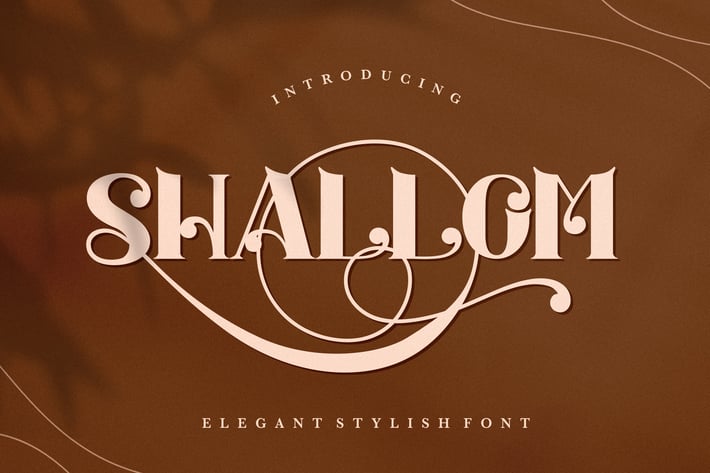
Shallom - Elegant Stylish Serif Font
Introducing Shallom Elegant stylish Serif font. Are you looking for a bold vintage elegant display Serif font that has vintage and blackletter feeling? We can help! Try to download our shallom font. The font is suitable to use for any occasion such as logo, wedding, invitation, product, fashion, brand, event, quotes and many more :)
Ligature and Stylistic Alternate